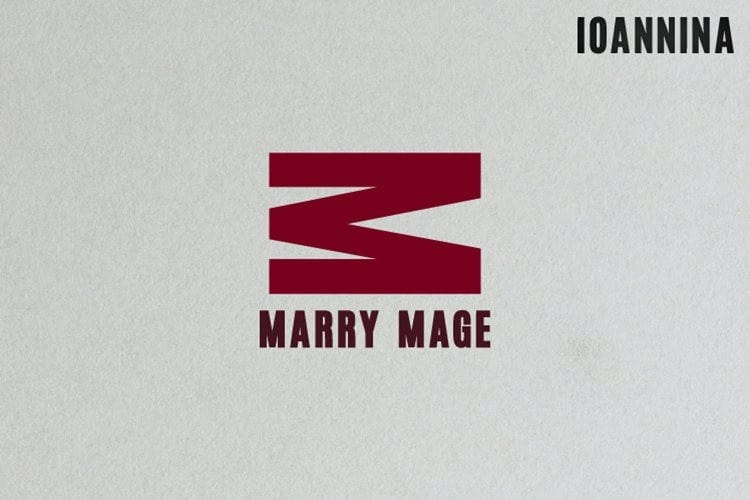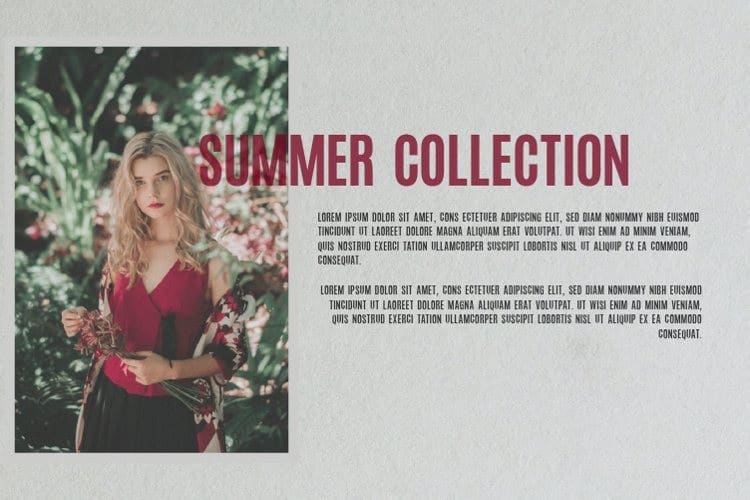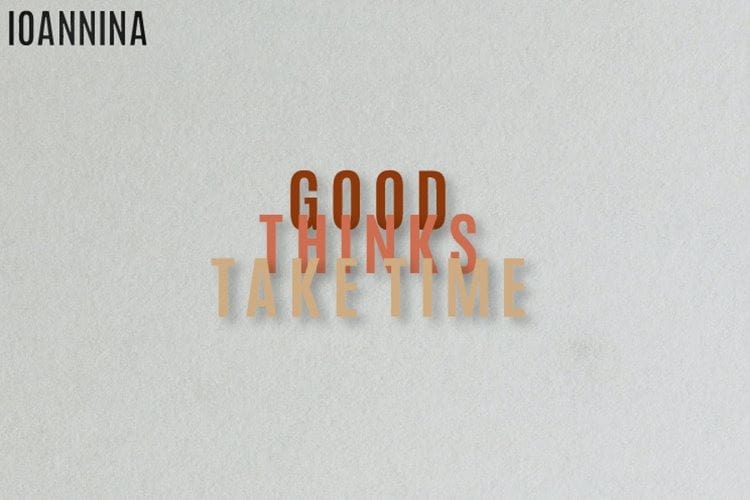
Ioannina Sans Serif Font is elegant, universal and laconic geometric sans. Made from font designer named Shanaya. It looks gorgeous in logo work as well as web headings and printed materials, and this pack comes with 4 weights(Light, Regular, Medium, Bold, and Black Version)!
These fonts are perfect for cover designs, posters, UI, branding, fashion, logos, social media templates, packaging, etc.